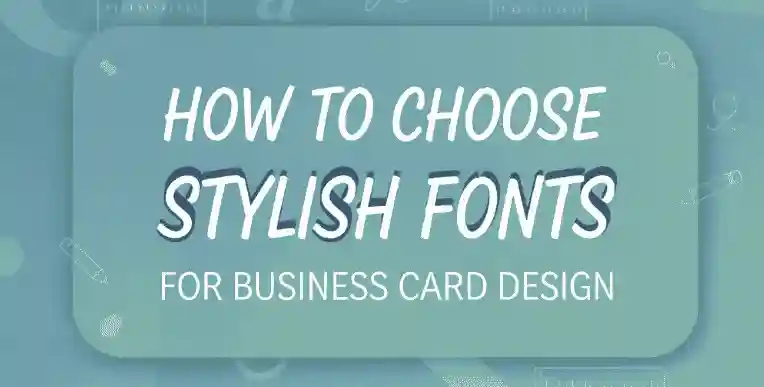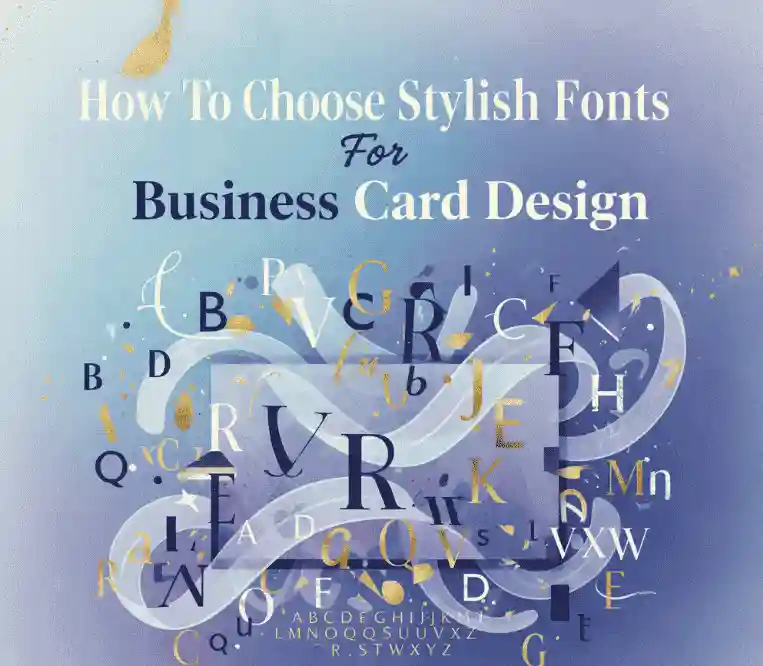
How To Choose Stylish Fonts For Business Card Design
1. Introduction
Designing a business card might seem simple — name, title, contact info — but in truth, every element contributes to how people perceive your brand. Among those elements, the font you choose plays a crucial role. A stylish font can elevate your card’s aesthetic, but if it’s unreadable or inconsistent with your brand, it can do more harm than good.
In this guide, you’ll learn how to choose stylish fonts for business card design in a way that balances beauty and function. Plus, we’ll highlight a few curated font products from NoahType that you can directly use for your own cards.
2. Why Font Choice Matters on Business Cards
• A business card is one of the few physical touchpoints your brand leaves in someone’s hands. It must be legible, memorable, and on-brand.
• Typography experts note that how a font is used (size, spacing, contrast) can make or break readability even more than the aesthetic.
• Using overly decorative font styles for body text can backfire — you risk losing clarity. The Printivity guide emphasizes that even beautiful fonts can ruin a business card if used in the wrong context (Printivity).
• Choosing a font consistent with your brand (tone, industry, audience) helps reinforce identity. The LinkedIn article “The Art of a Digital Business Card” discusses how fonts, colors, and styles must align for stronger branding (LinkedIn).
So, “Stylish ” doesn’t mean “fancy everywhere” — it means visually appealing while serving the purpose.
3. Key Principles to Consider
3.1 Readability & Legibility
No matter how beautiful, a font is useless if someone can’t read it quickly. On a small canvas like a business card, legibility is king.
• Use font sizes that remain readable (8 pt minimum; many recommend 10–11 pt for body text) (MOO).
• Avoid thin strokes or overly tight spacing.
• Ensure characters don’t clash (e.g., “r” and “n” merging).
• Test fonts at actual card size with printed mockups.
3.2 Visual Hierarchy
Hierarchy directs the reader’s eye. Typically:
• Name or brand name deserves the most emphasis (larger size, bold weight).
• Title or tagline can be smaller or lighter.
• Contact details should be the least emphasized, often in a simpler font.
3.3 Brand Personality & Tone
Fonts convey tone — modern, classic, elegant, quirky, minimal.
• A law firm might go with a serif or clean sans-serif.
• A creative brand could lean on script or decorative fonts.
• The HiHello guide recommends filtering fonts by style based on brand personality (HiHello).
3.4 Pairing Fonts Wisely
Most cards use 2 fonts: one for primary (name/brand), one for secondary (contact).
• Pair contrasting Stylish , like serif + sans-serif.
• Avoid fonts that are too similar.
• Use pre-designed duo fonts such as Think vs Feel Serif Script Font, which pairs a typewriter serif with a stylish handwriting script.
• Make sure both fonts are legible at small sizes.
3.5 Contrast, Size & Spacing
• Contrast: Ensure enough difference between text and background.
• Size: Names/headlines may be 12–16 pt; contact text usually 8–10 pt.
• Line spacing: Keep text breathable, not crowded.
• Letter spacing: For uppercase display fonts, add slight tracking for clarity.
4. Common Font Categories & When to Use Them
4.1 Serif
Evokes tradition, elegance, and authority. Great for classic or professional industries.
4.2 Sans-Serif
Modern, clean, versatile. Excellent for contact info thanks to readability (GotPrint Blog).
4.3 Script / Calligraphy
Handwritten or Stylish strokes. Best for accents (e.g., names, logos). Try Special Night Calligraphy Font for elegant details.
4.4 Display / Decorative
Eye-catching, Stylish fonts. Suitable for brand names or bold statements. Authoria Stylish Serif Font blends modern elegance for this purpose.
5. Step-by-Step Workflow: Choosing a Stylish Font
1. Define your brand tone and audience.
2. List all card content (name, title, contact, tagline).
3. Choose your primary font for the brand name.
4. Select a secondary font for supporting details.
5. Mock up different layouts and compare.
8. Conclusion & Next Steps
Choosing a stylish font for business card design is about balancing aesthetics with functionality. By focusing on readability, hierarchy, brand personality, pairing, and spacing, you can craft cards that leave a lasting impression.